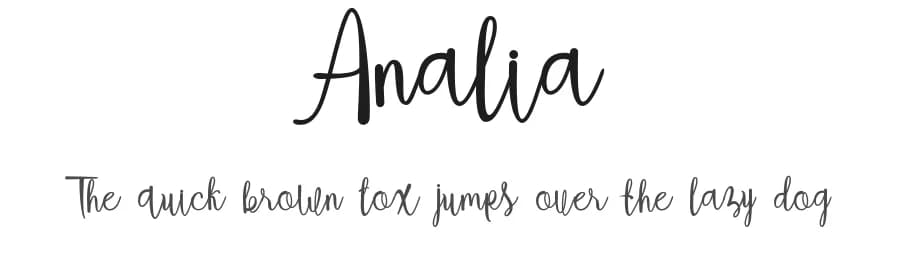
About Analia Font
Analia is a sweet and subtle handwritten font that is crafted with great care for maximum results. It will add elegance and class to any of your design projects. This font can be used to write various kinds of products according to the aspect of each need.
Analia Font is a script font that shines as a display or heading face. Pair it with a clean sans-serif or serif font for body text β the contrast creates a clear hierarchy while the two styles stay balanced and easy to read.
Analia Font